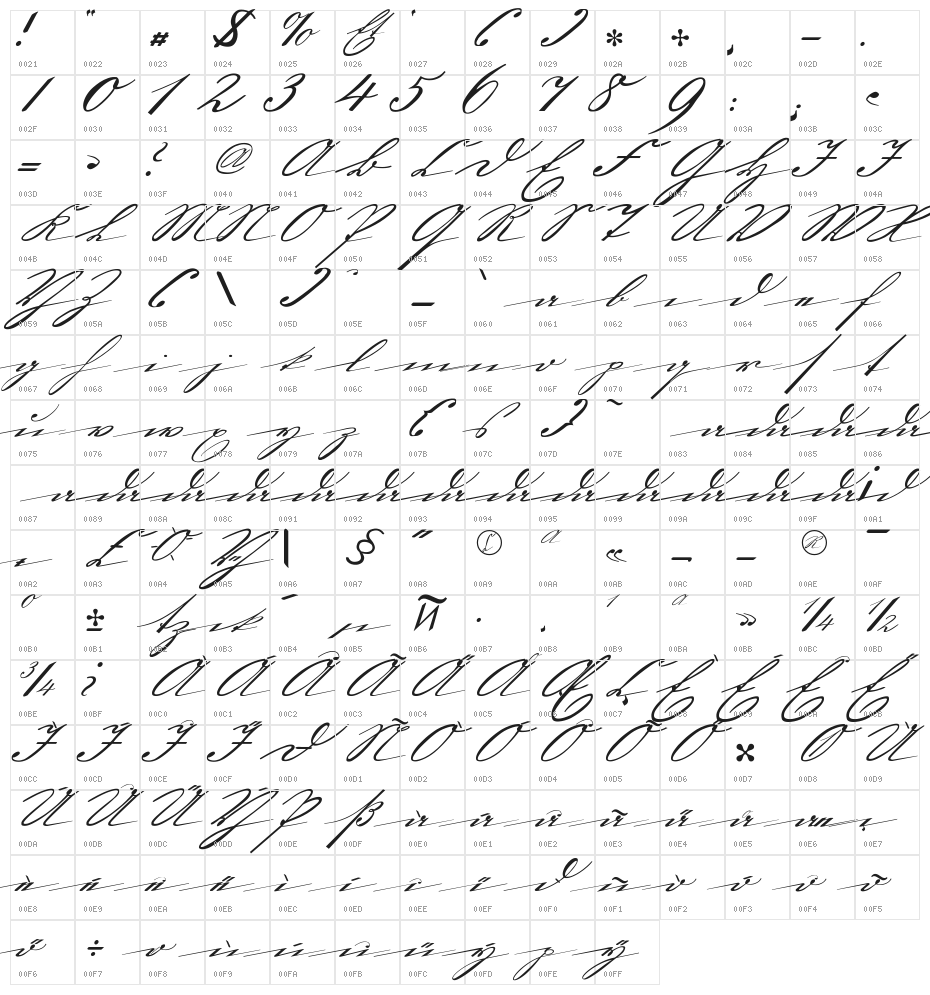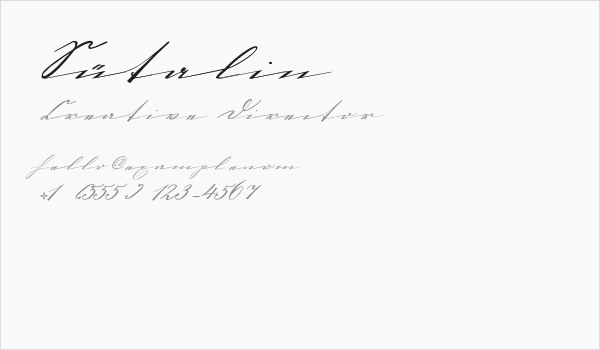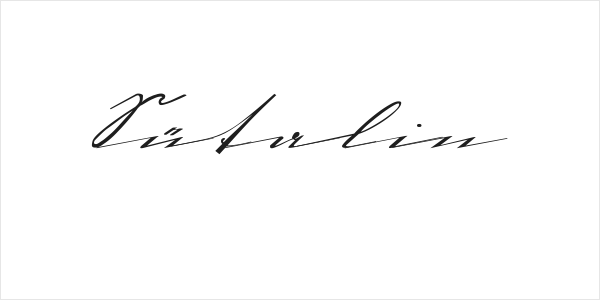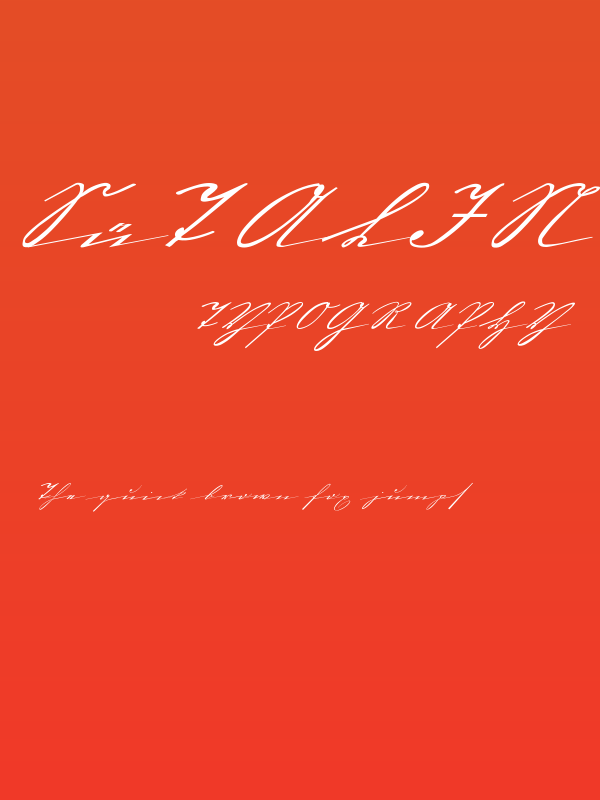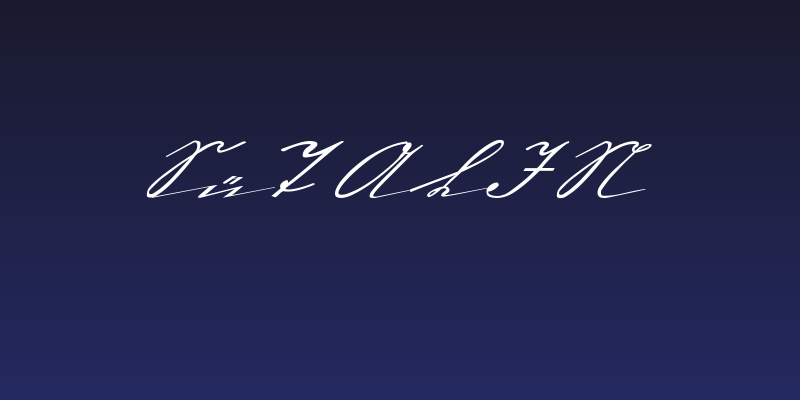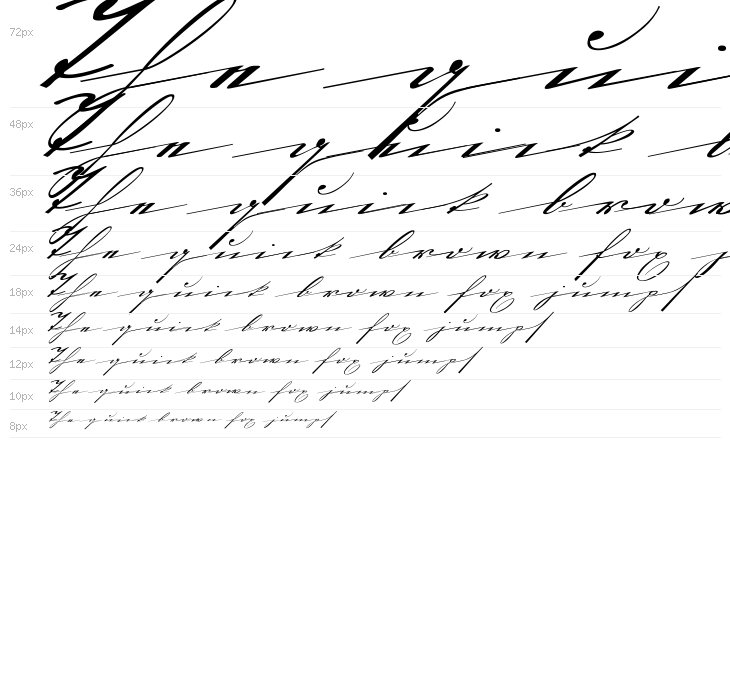
Sütalin Font
Sütalin Description
This elegant script font features a flowing, cursive style with high contrast between thick and thin strokes. The characters are connected, creating a seamless and sophisticated appearance. The uppercase letters are ornate and decorative, while the lowercase letters maintain a consistent slant, enhancing the fluidity of the text. The numerals and special characters are designed to match the overall aesthetic, adding a touch of elegance and refinement. This font is perfect for projects that require a touch of class and sophistication.
Overall StyleElegant, Sophisticated
Use CaseHeadlines, Invitations, Branding
Proposed ProjectsIdeal for wedding invitations, formal event programs, elegant branding, and high-end product packaging.